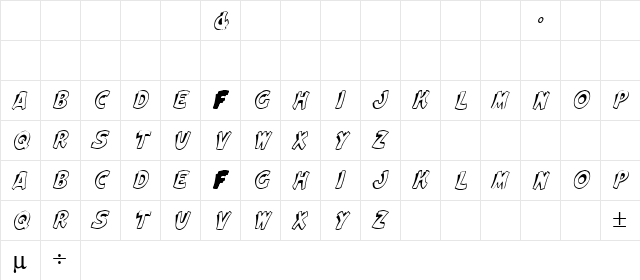
Cartoon Slant 2 Italic
Design Context for Cartoon Slant 2 Typeface
Cartoon Slant 2 trades formality for fun, with bouncy, characterful letterforms that bring warmth and energy to any project. Its italic angle brings a sense of urgency and motion to the letterforms.
Font Pairing: Pairs well with a rounded or humanist sans for body copy, maintaining the friendly tone without relying on Cartoon Slant 2 to carry extended reading.
Pro Tip: Use Cartoon Slant 2 at larger display sizes where its expressive character can land. Pair with a clean, simple sans for body copy to maintain readability.